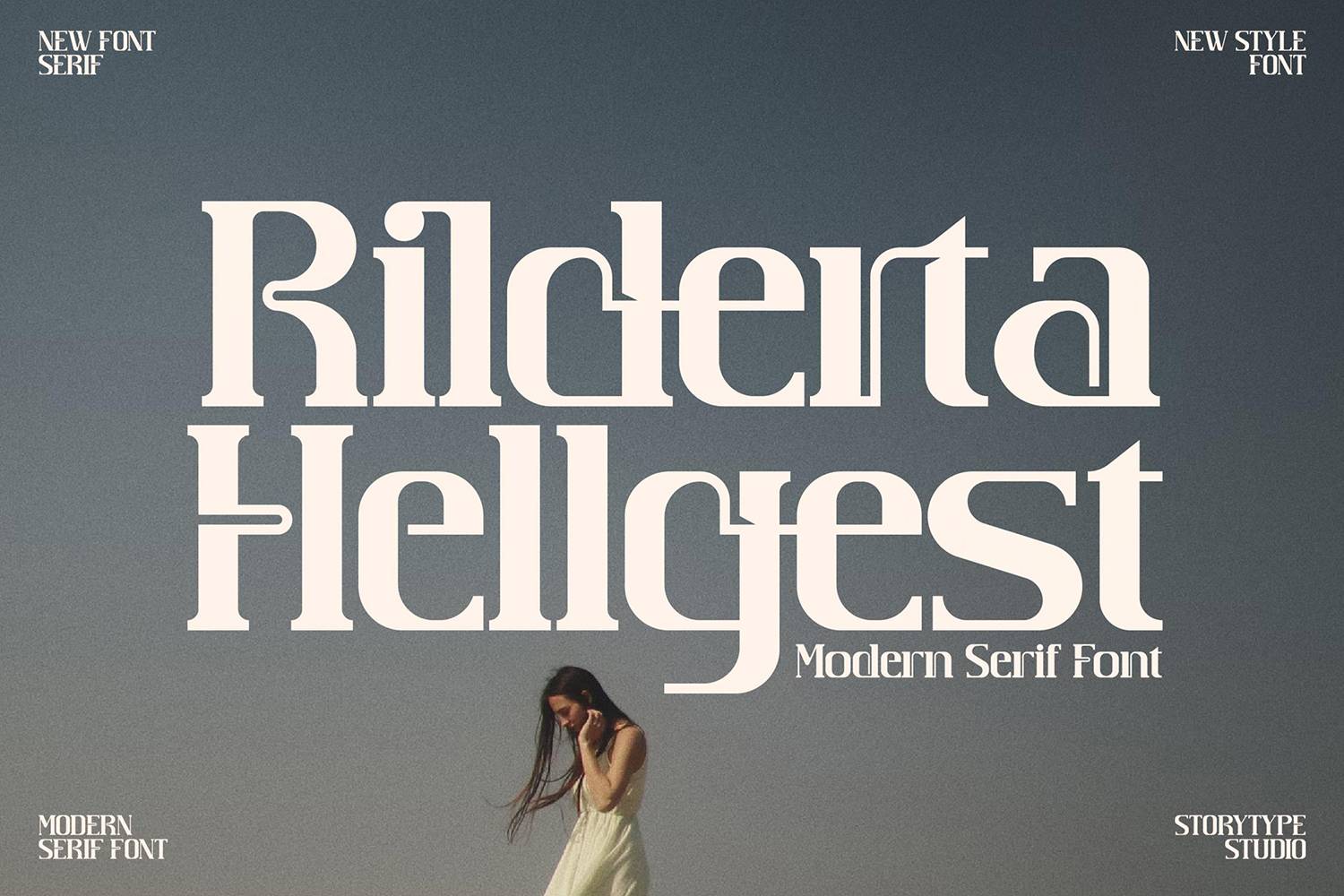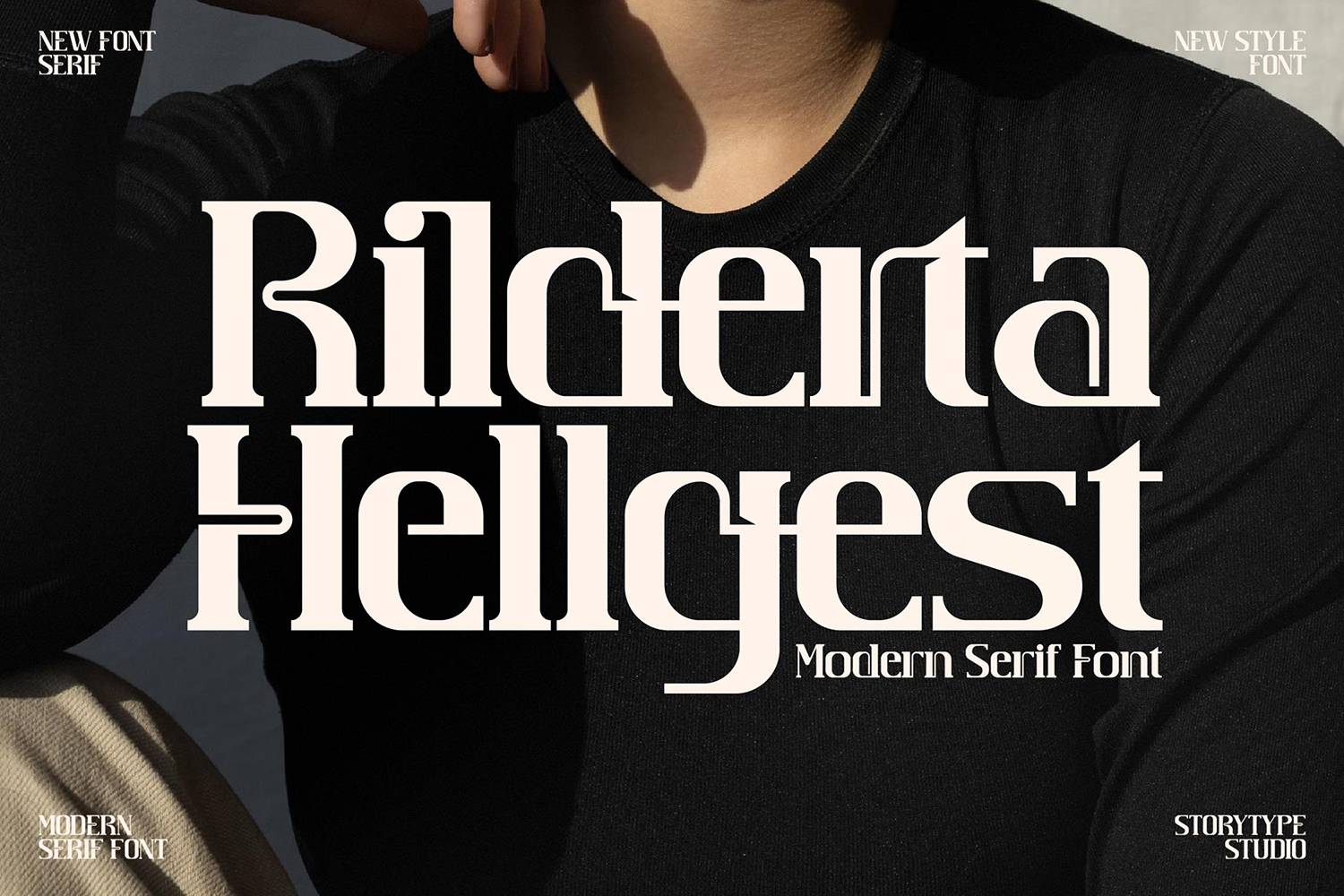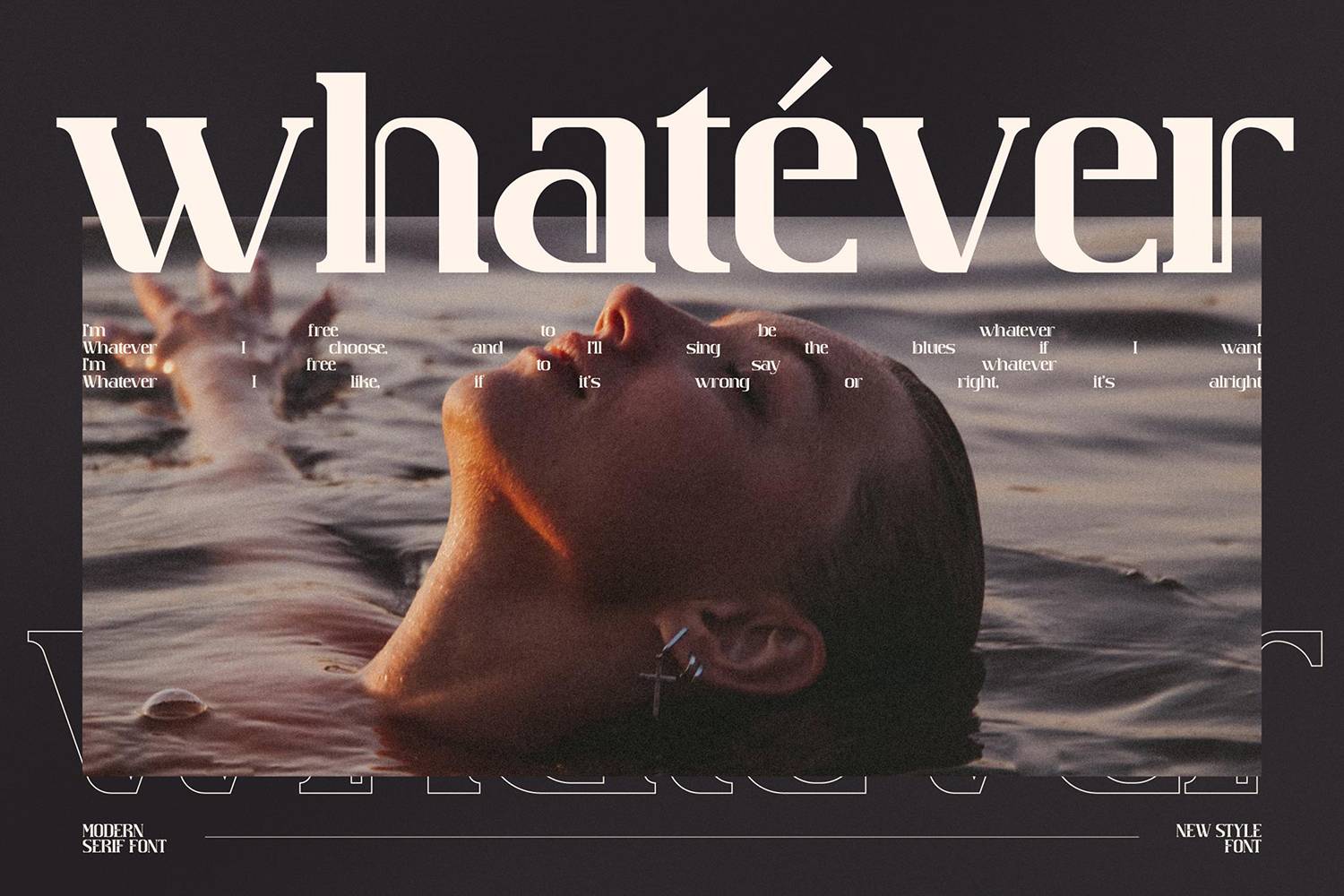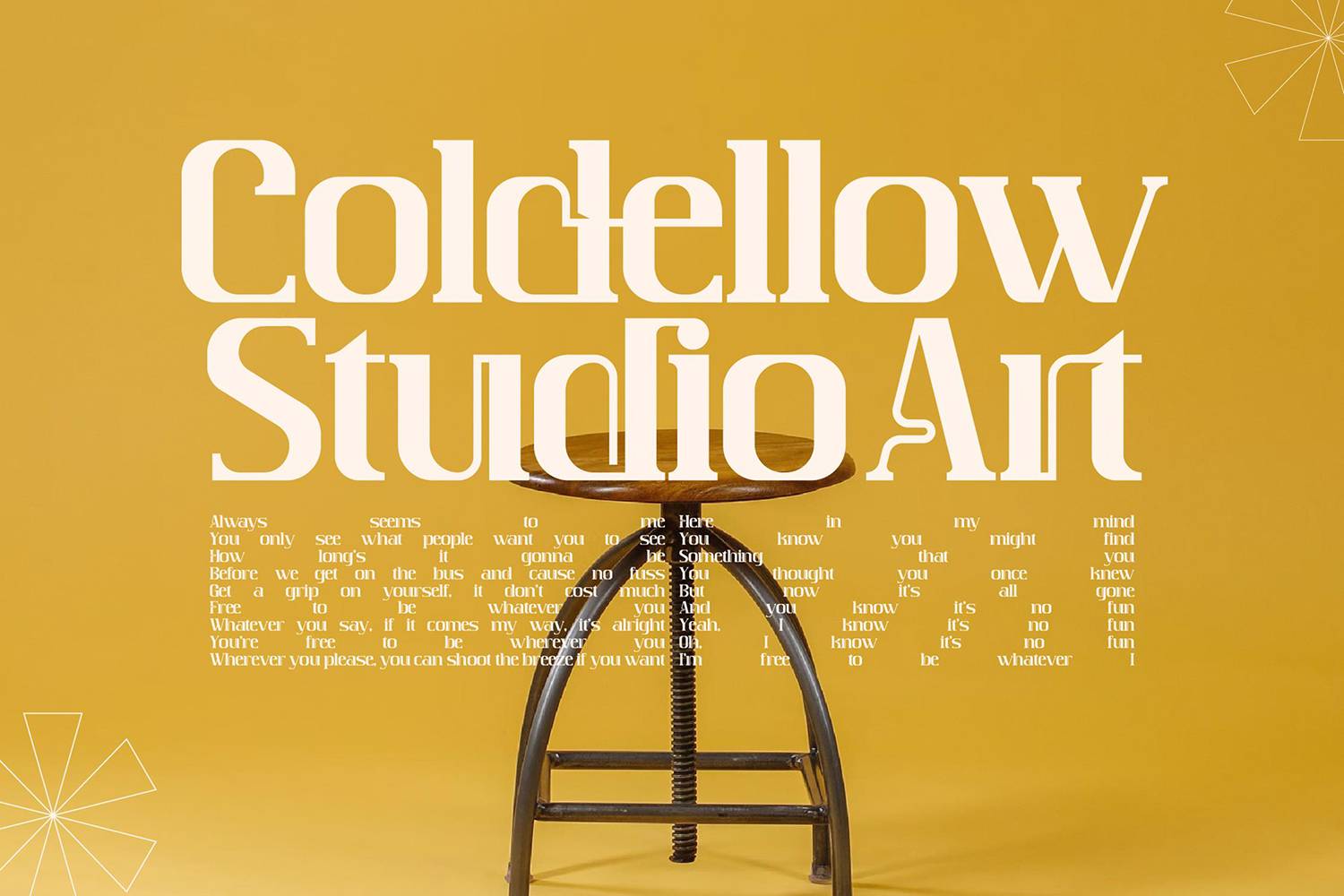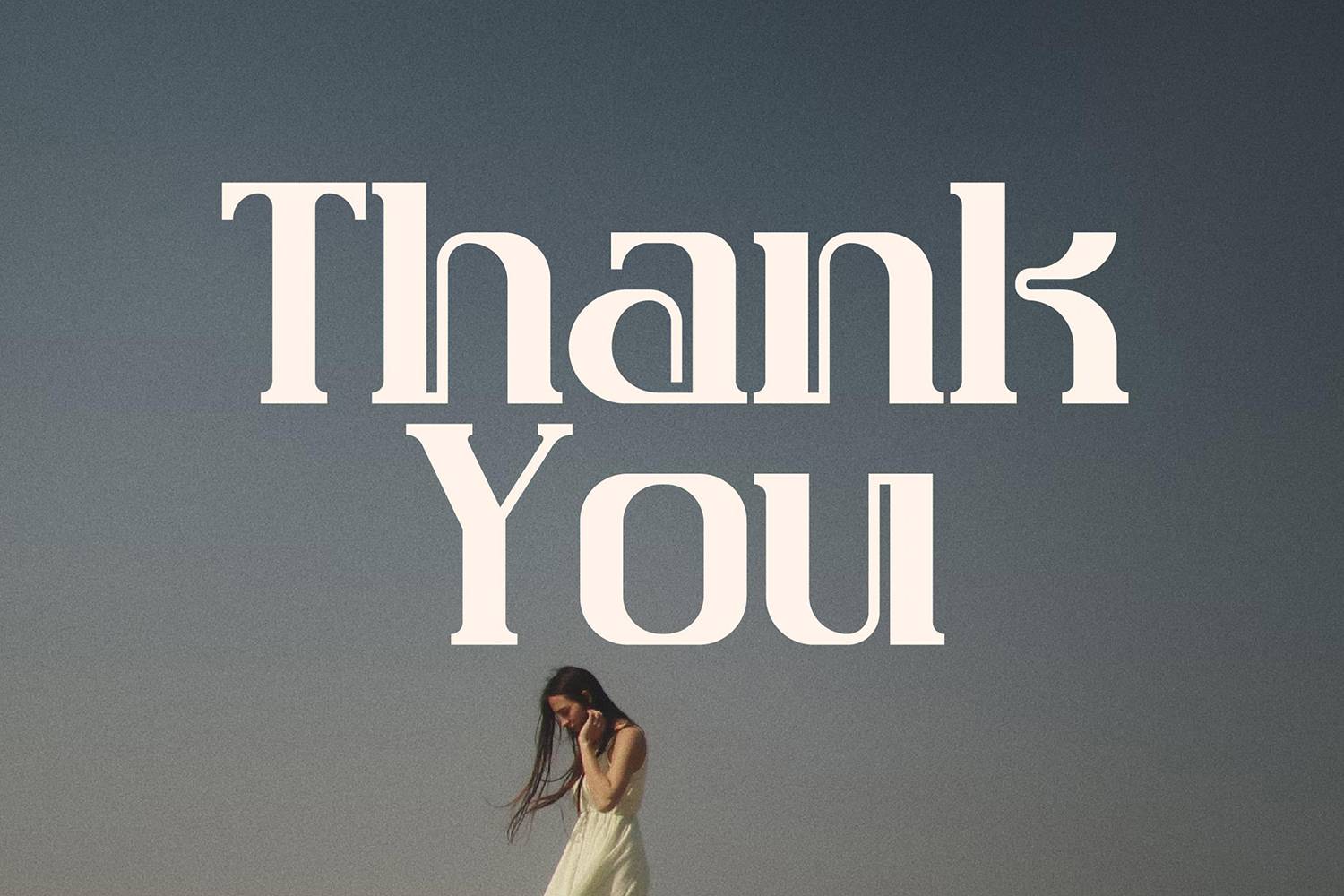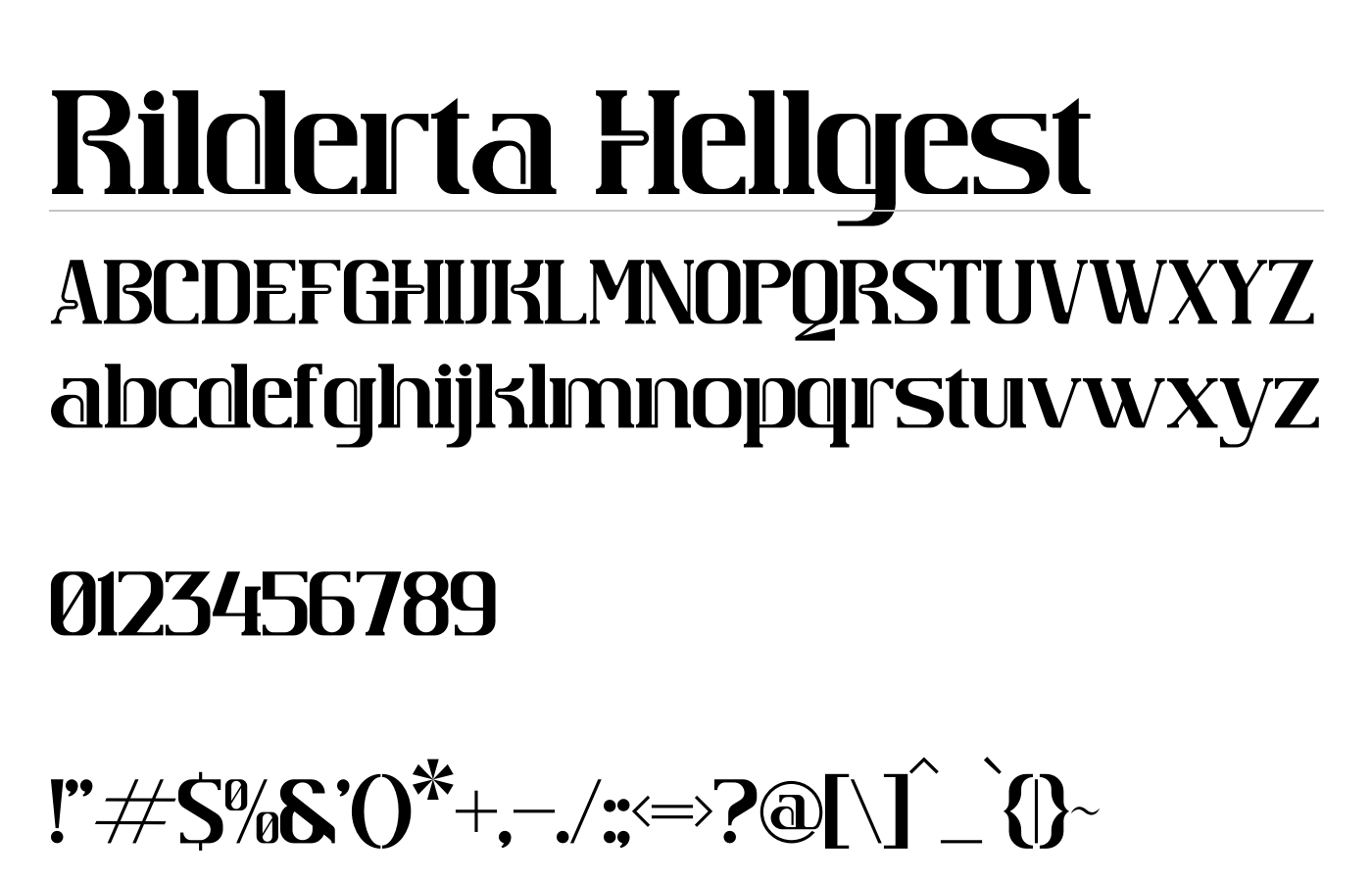
Rilderta Hellges is a distinctive serif font with a narrow, condensed structure and high contrast between thick and thin strokes. Its sharp, bracketed serifs and geometric letterforms give it a stylish, modern yet slightly vintage feel, making it ideal for striking headlines, luxury branding, and editorial design that seeks to combine elegance with a unique personality. This font stands out in creative projects where bold sophistication and a touch of flair are desired.
Rilderta Hellges Font
About Rilderta Hellges Font